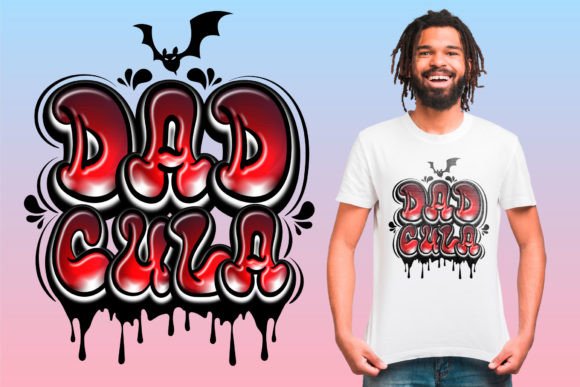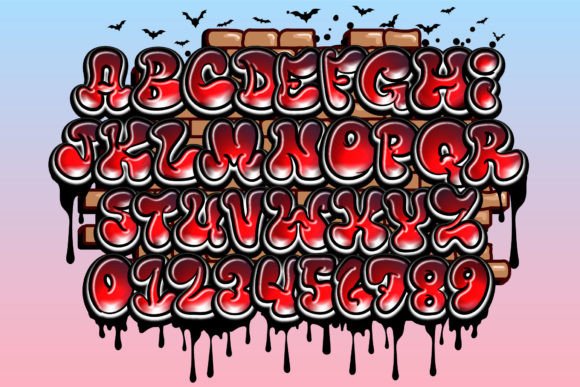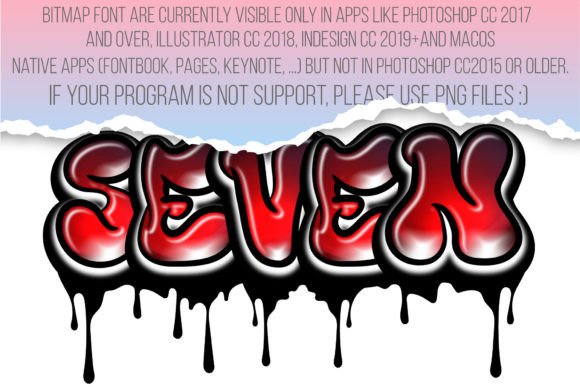
About Mister Graffiti Font
Get ready to bring an urban edge to your designs with the Mister Graffiti color font! This vibrant and expressive font is inspired by the artistry of graffiti and is perfect for adding a cool and urban touch to your projects.
Whether you’re working on street art designs, hip-hop album covers, urban-themed posters, or any other creative endeavor that needs an edgy vibe, the Mister Graffiti font is the perfect choice. Its graffiti-styled letterforms and vibrant colors capture the energy and spirit of urban art, allowing you to create eye-catching and dynamic compositions.
With its wide range of colors and expressive characters, the Mister Graffiti font offers limitless creative possibilities. Let your imagination run wild as you combine different colors, experiment with different graffiti styles, and create custom designs that truly stand out.
Let the bold strokes, vibrant colors, and urban flair of the Mister Graffiti font inspire you to create captivating designs. From street art murals to album covers to digital graphics, this font will add an authentic and edgy touch to your projects.
So, unleash your creativity, embrace the urban vibes, and let the Mister Graffiti font take your designs to the streets. There are no limits to what you can create with this expressive and vibrant font.